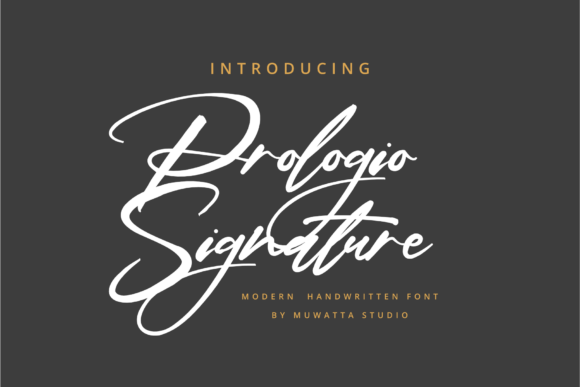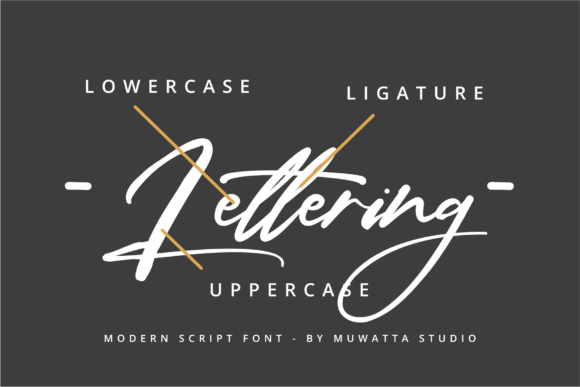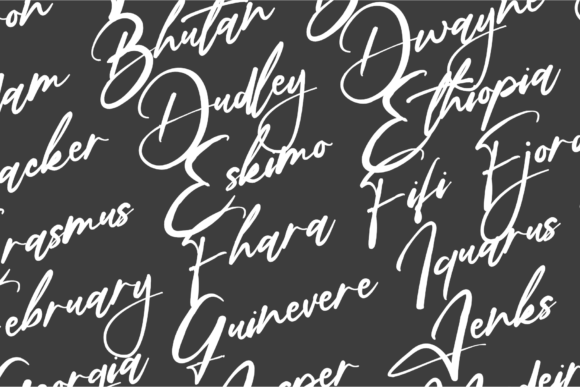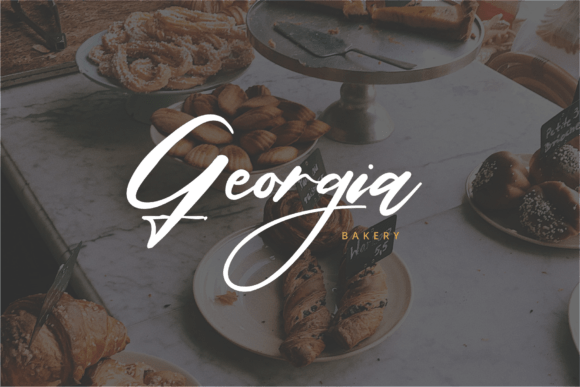
Prologie Signature Font
Prologie Signature: The perfect font to elevate your visual storytelling with an air of artistry and personal touch. Designed for those who cherish the elegance of calligraphy and the finesse of signature-style lettering, Prologie Signature is a celebration of the art of writing and the essence of individuality.With its fluid, graceful strokes and intricate details, Prologie Signature brings a sense of refinement and authenticity to every project. Ideal for the world of photography, where each image captures a moment of beauty, this font adds a touch of sophistication and charm that complements your visual creations. Whether you’re crafting a stunning portfolio, designing a captivating photo album, or curating a bespoke logo, Prologie Signature transforms ordinary text into an extraordinary signature of your artistic vision.Embrace the unique allure of Prologie Signature and let it infuse your work with a sense of elegance and personal flair. This font isn’t just a choice—it’s an extension of your creative identity, designed to leave a lasting impression and celebrate the beauty of your craft.